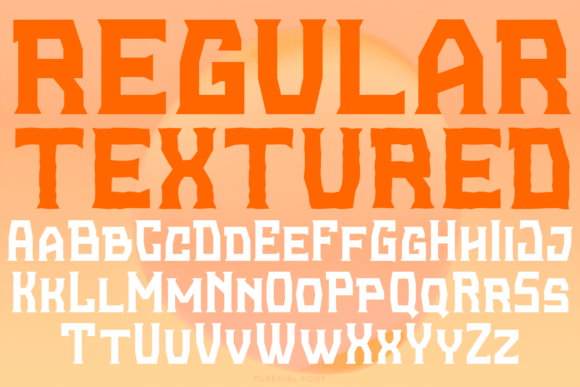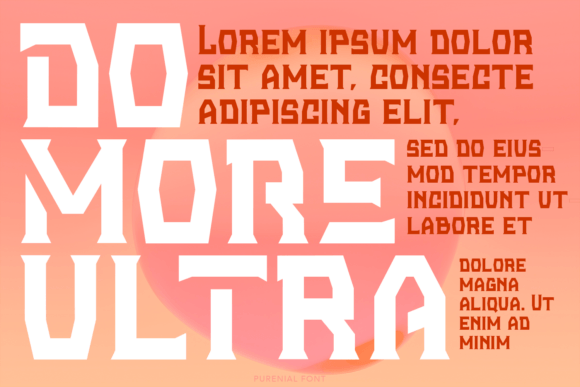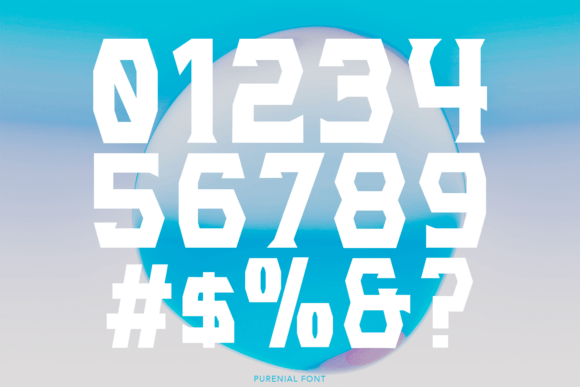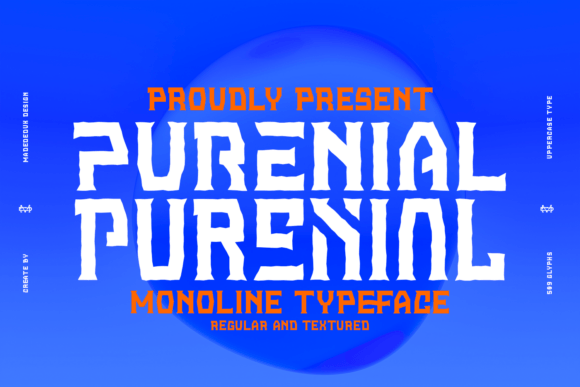
Introduction to Purenial Font
Purenial is a monoline font, It easily cooperates together and perfect for creating the vintage style.
All characters have a shape that gives a strong look in design These fonts have clean and textured versions, special features such as stylistic alternates and ligatures.